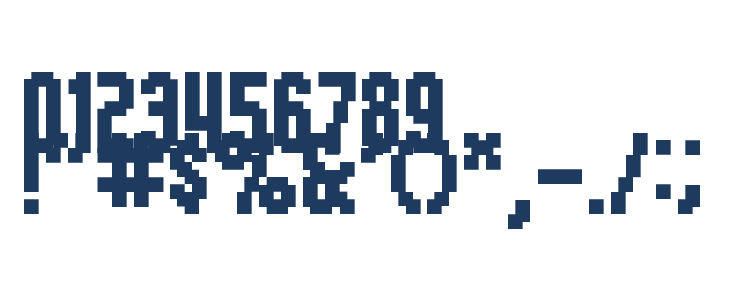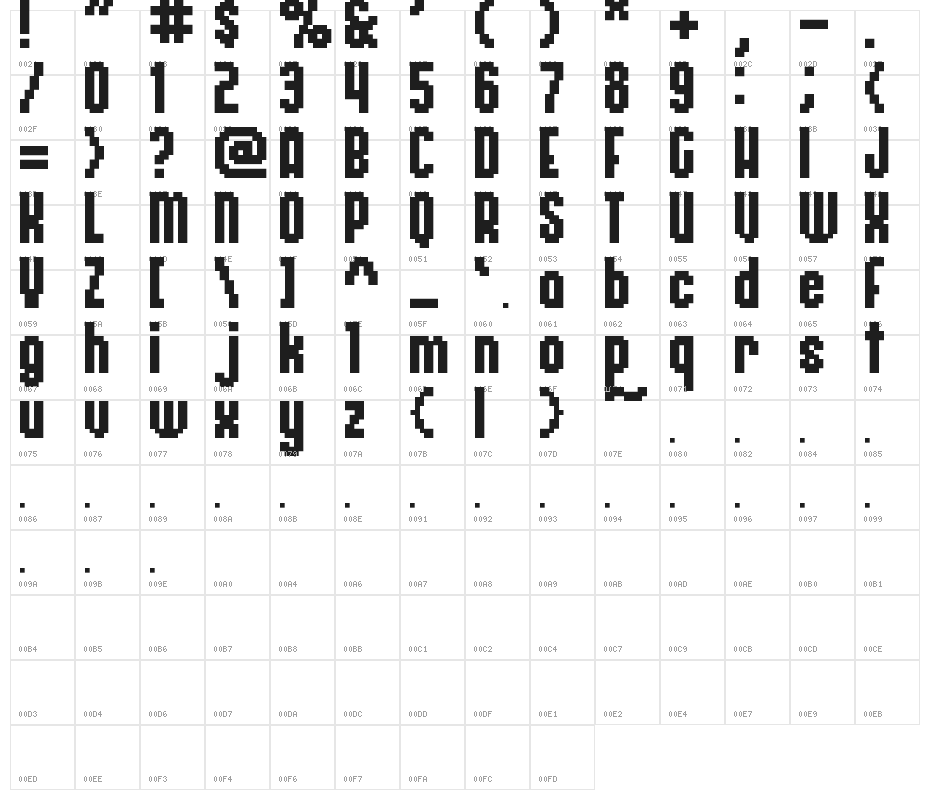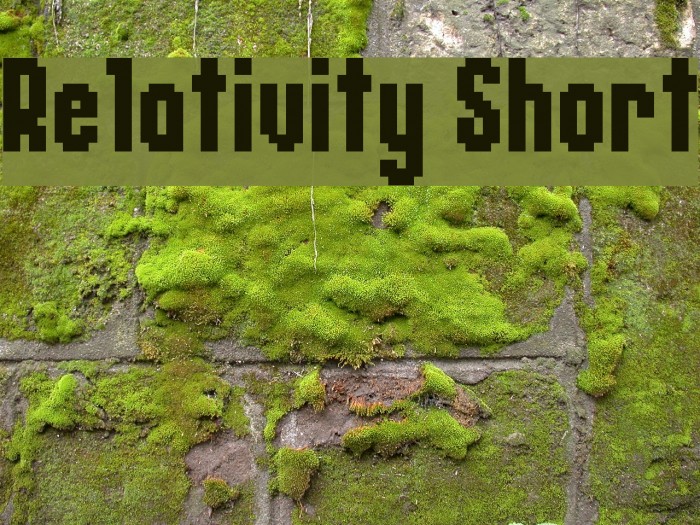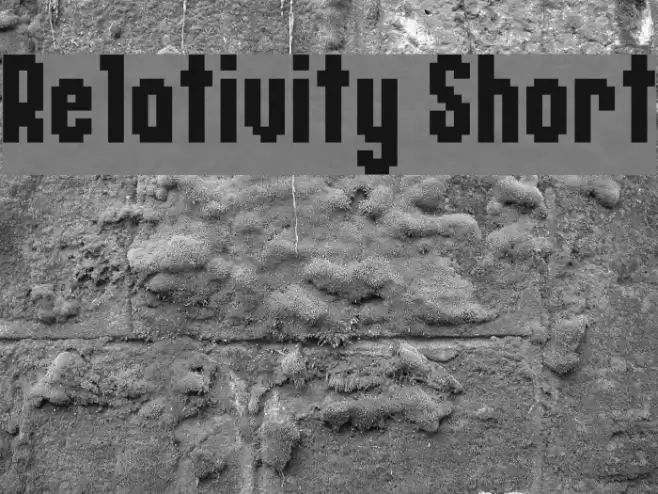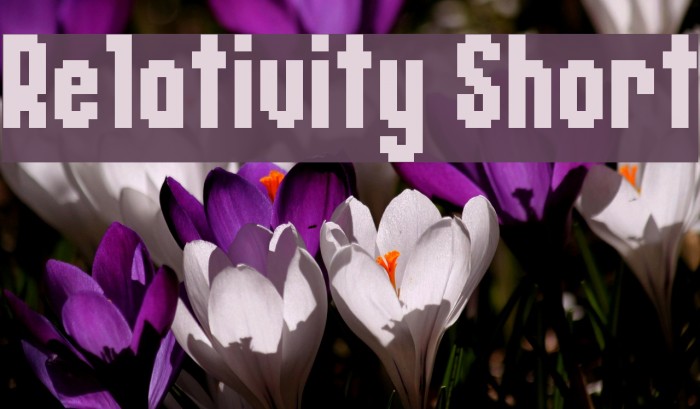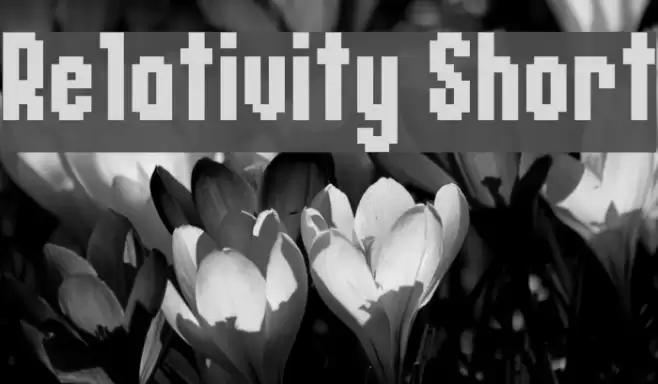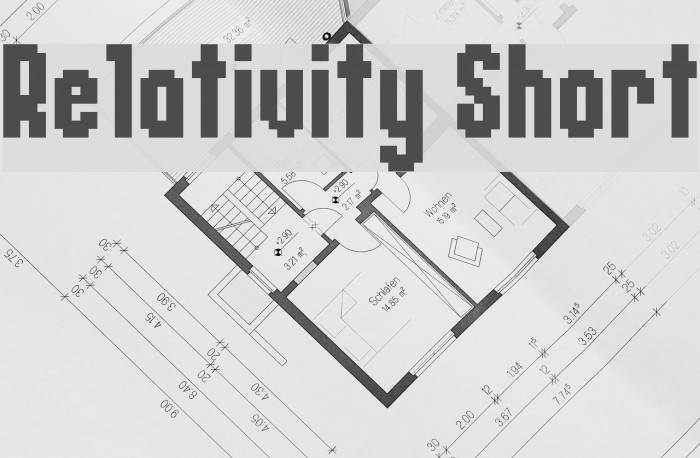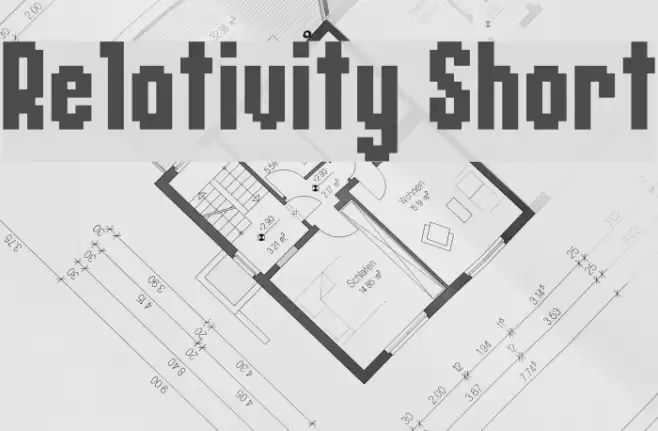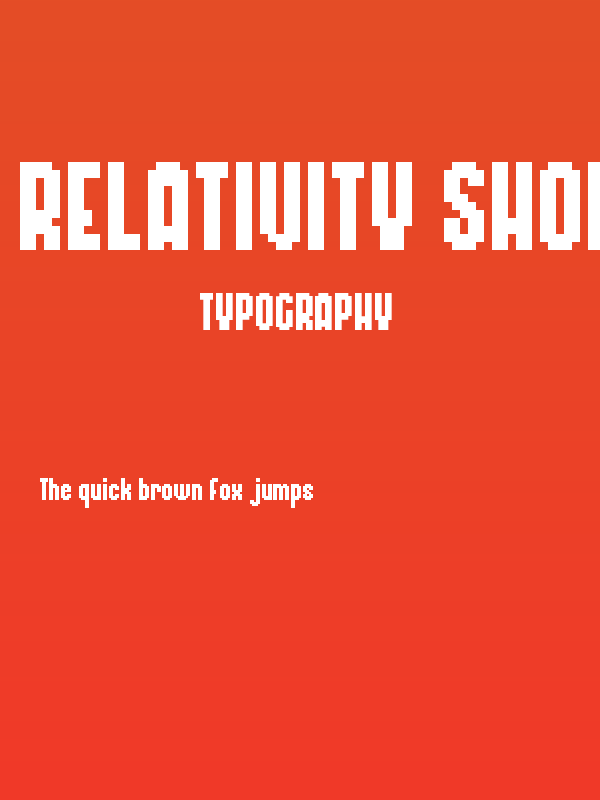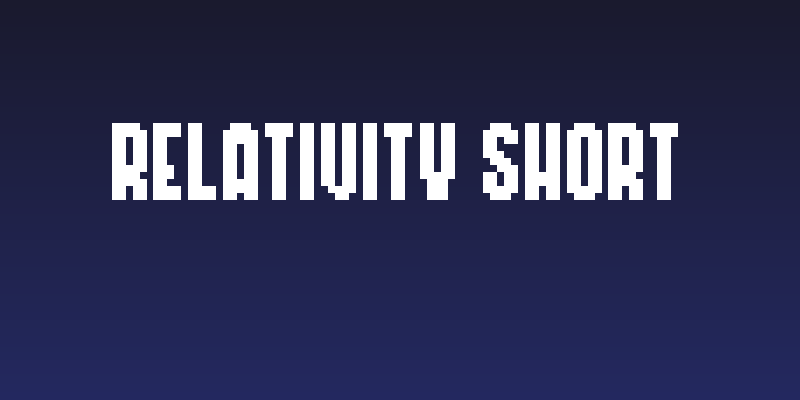
Relativity Short Font
Relativity Short Description
This font features a bold, pixelated style reminiscent of early digital or video game typography. Each character is composed of blocky, square shapes that give it a distinctly retro and digital appearance. The uppercase and lowercase letters maintain a consistent height, contributing to a uniform look across the text. Numbers and special characters follow the same pixelated design, ensuring a cohesive aesthetic. The font's design is straightforward, with no curves or embellishments, emphasizing a minimalist and functional approach.
| Proposed Projects | Ideal for retro video game graphics, digital-themed posters, or any project requiring a nostalgic digital aesthetic. |